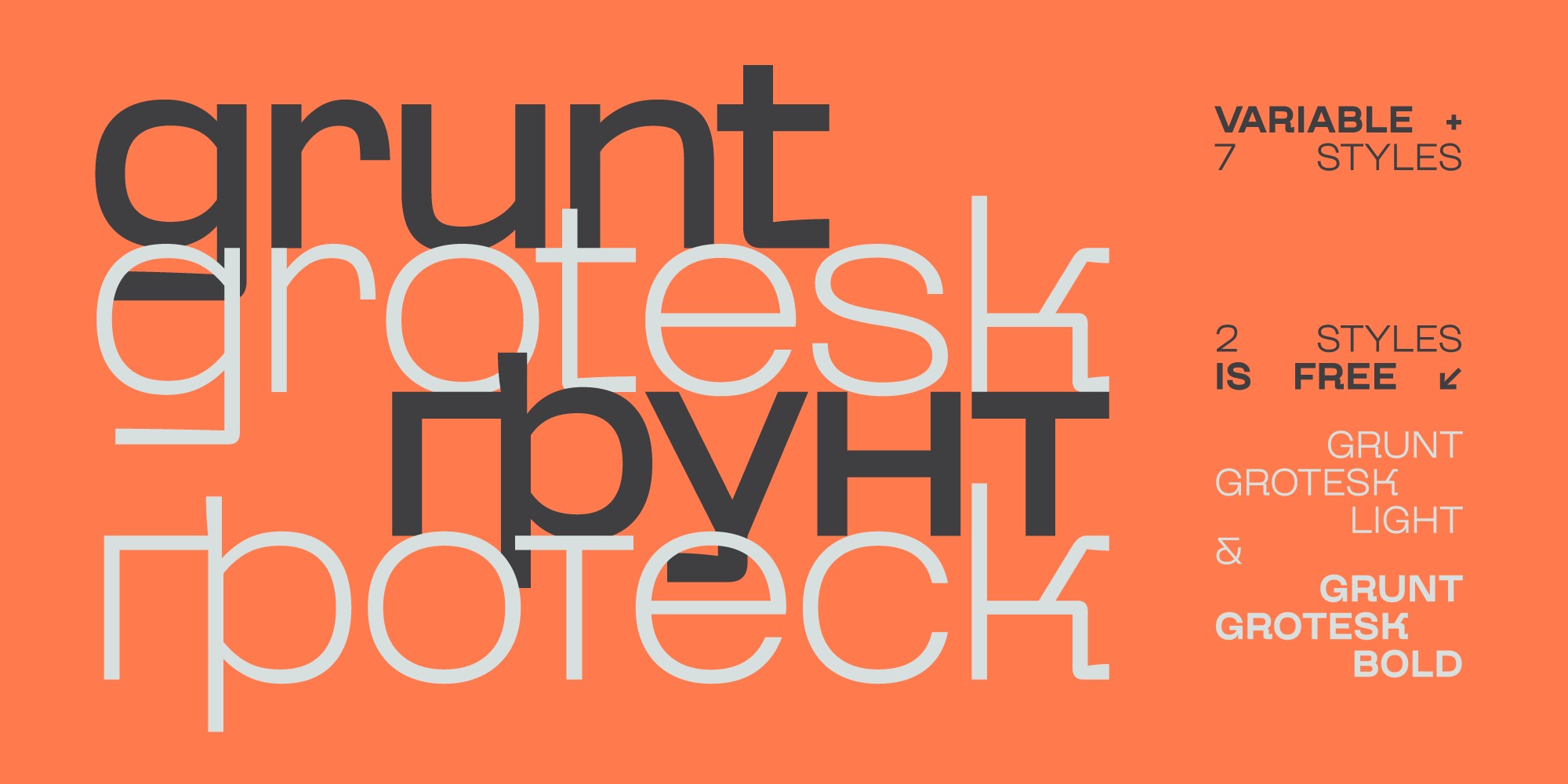
Grunt Grotesk Font Family
Grunt Grotesk Font Family is a versatile font designed to adapt beautifully across different design styles, offering dependable readability and balance. Grunt Grotesk is a modern Ukrainian sans-serif typeface with a number of distinct characteristics, which make it unboring but still great in the massive text blocks.